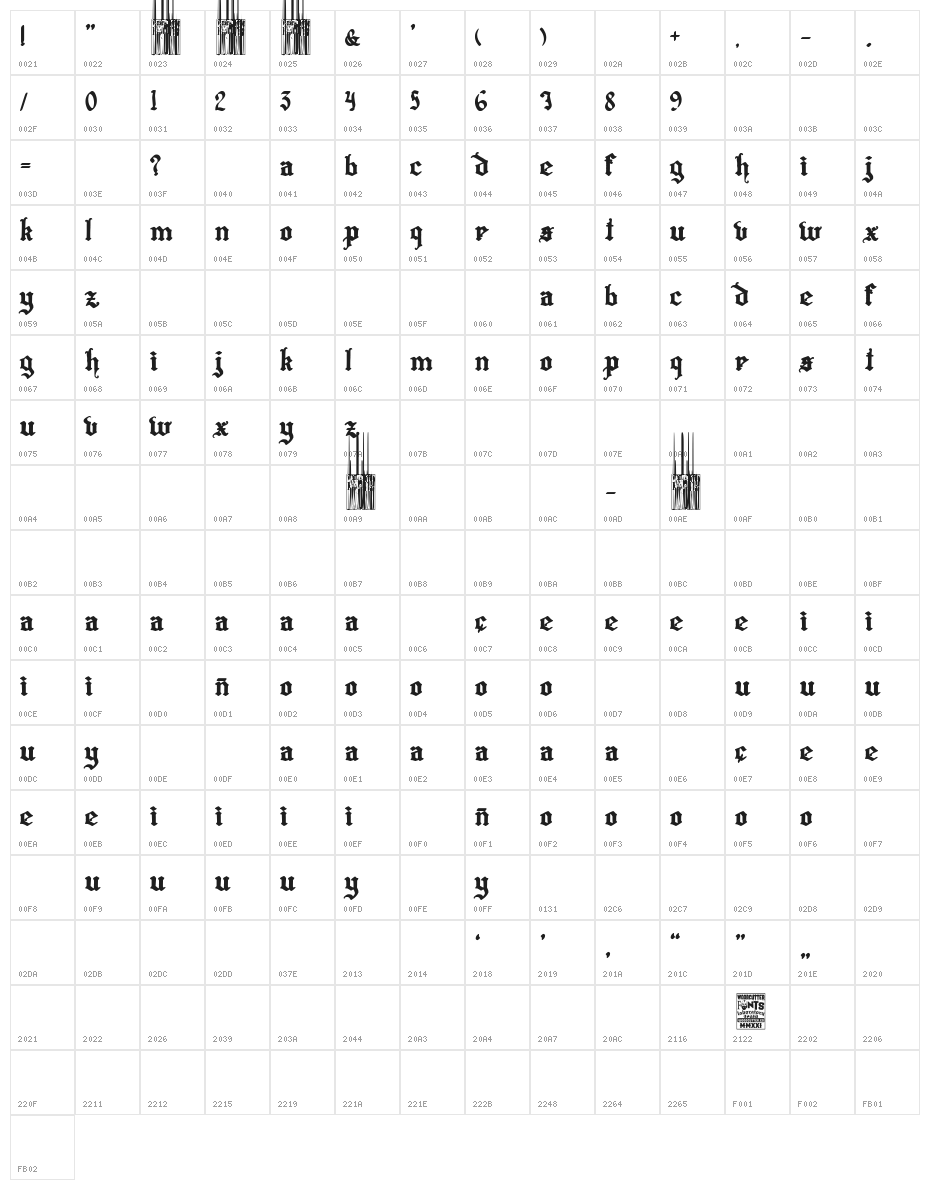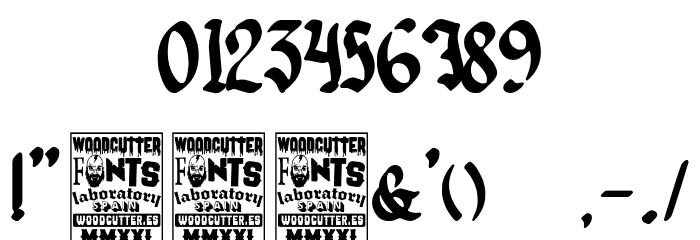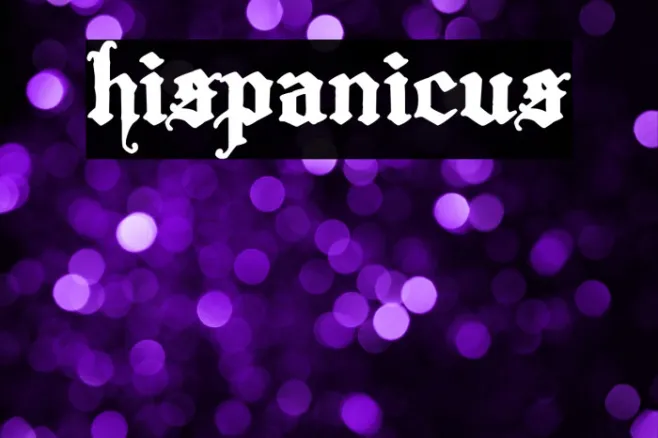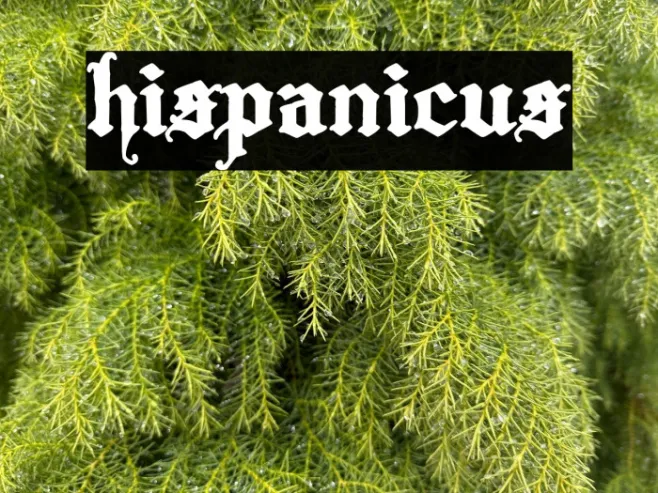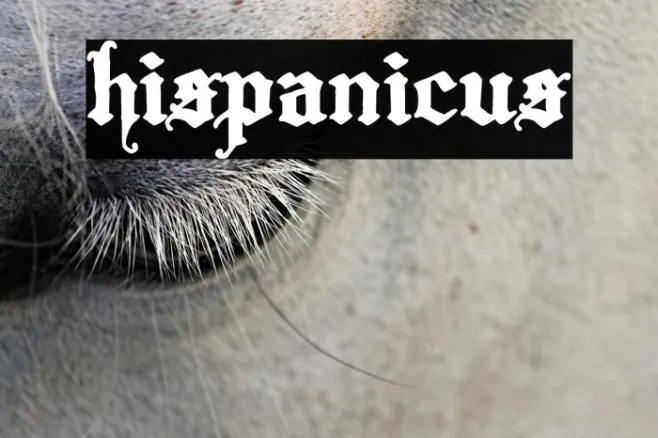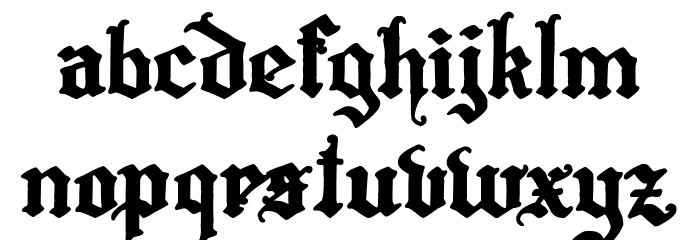
Hispanicus Font
Hispanicus Description
This font features a bold and intricate design reminiscent of traditional blackletter styles. Its characters are sharply defined with dramatic strokes and ornate details, creating a sense of historical elegance and authority. The uppercase and lowercase letters maintain a consistent style, with angular lines and pointed serifs that enhance its gothic appearance. The numerals are equally stylized, fitting seamlessly with the overall aesthetic. Special characters are included, maintaining the same decorative flair. This font is ideal for projects that require a touch of medieval or vintage charm.
| Use Case | Headlines, Logos, Decorative text |
| Proposed Projects | Perfect for historical documents, event posters, book covers, and branding that requires a vintage or gothic touch. |